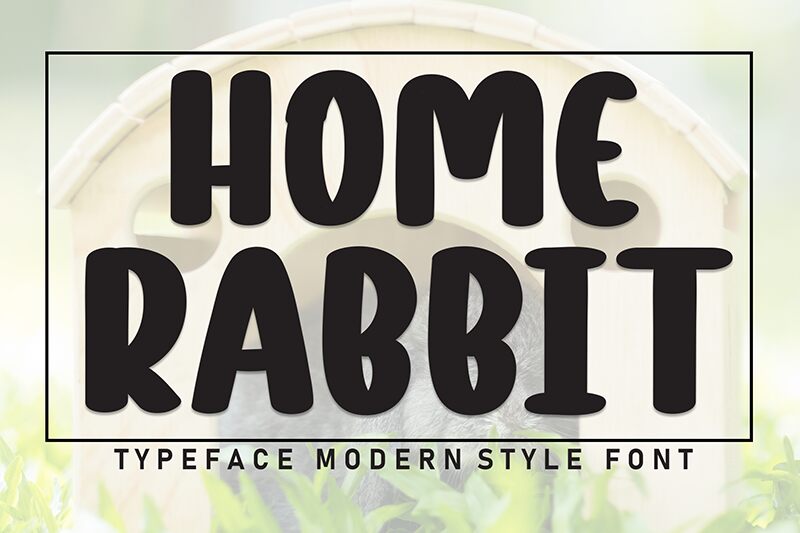
Home Rabbit
Home Rabbit font by Andi Moz is a bold brush script with rounded lines for a casual look. This friendly typeface with uniform thickness and soft appearance expresses itself to show a vintage appeal that can put life into any design project. The natural character of this free handwritten font brings authenticity through thick strokes.
Use Home Rabbit in posters, packaging, or web and app designs for different elements like buttons or stamps. Logotypes and signatures will look great; so will restaurant menus, invitation cards (for weddings, birthdays etc.), anything used for promoting businesses like business cards or pamphlets.